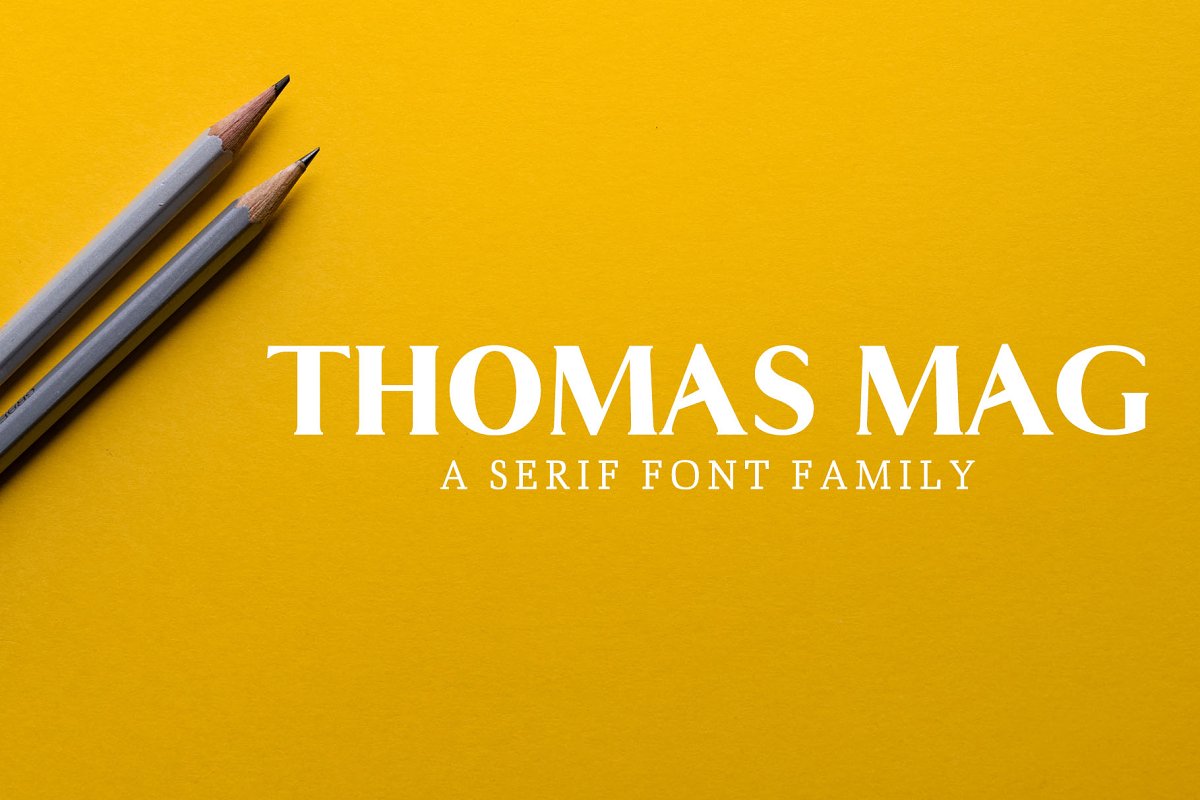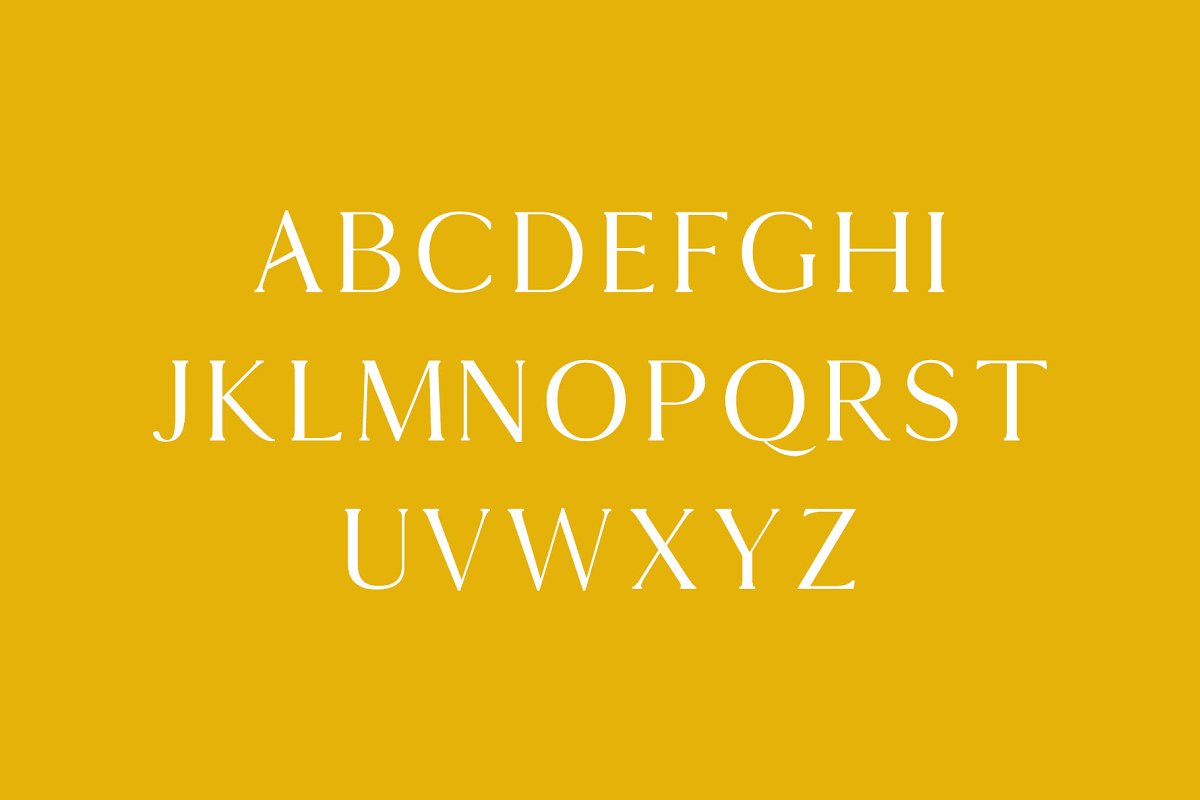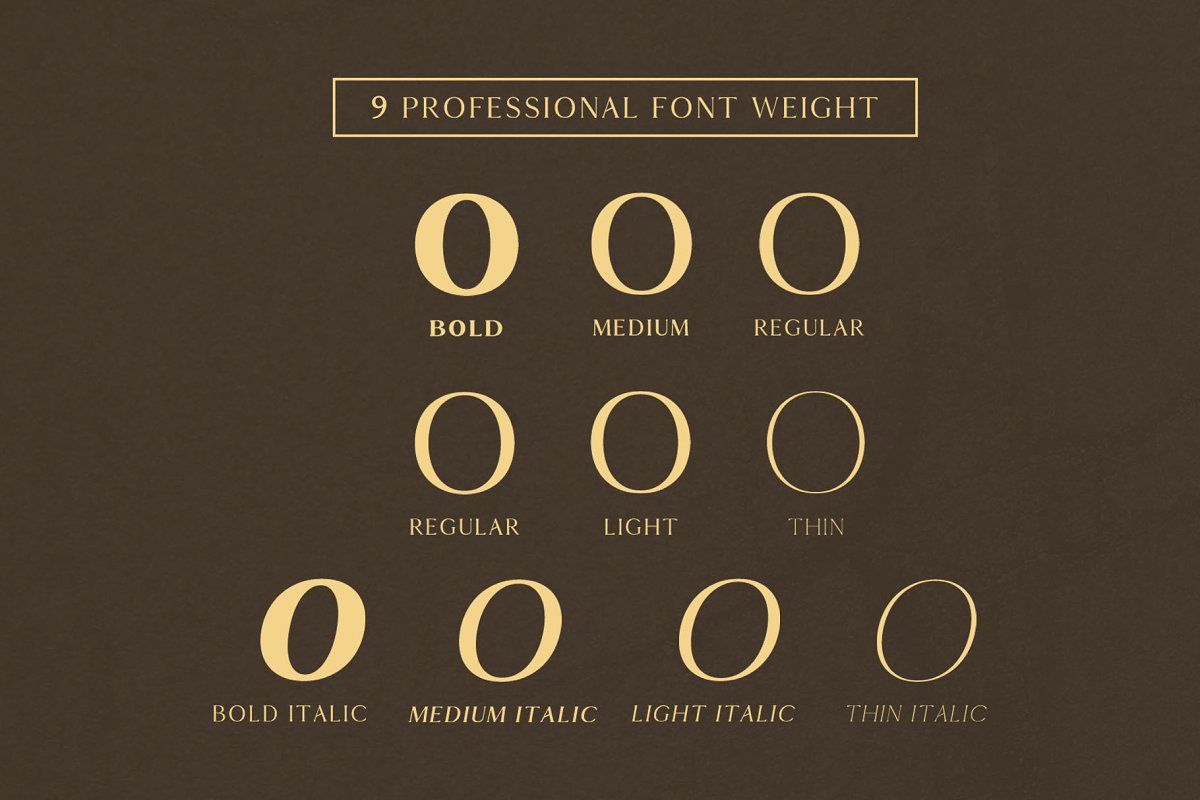
About the Thomas Mag Serif Family Pack Font
Thomas Mag is the perfect typeface to create sleek and elegant logo designs and headlines, It pairs well with both script and serif fonts and features multiple weights, FeaturesRegular, Medium, Bold, Thin and Light and Italic WeightsOTF, TTF, WOFF, WOFF2 FormatsThomas Mag Font Features:Uppercase Multilingual LettersLowercase Multilingual LettersNumbers & PunctuationNon English Characters ( Latin Extended A )Supported Characters:ABCDEFGHIJKLMNOPQRSTUVWXYZabcdefghijklmnopqrstuvwxyz0123456789!#$&'()Ś+,-